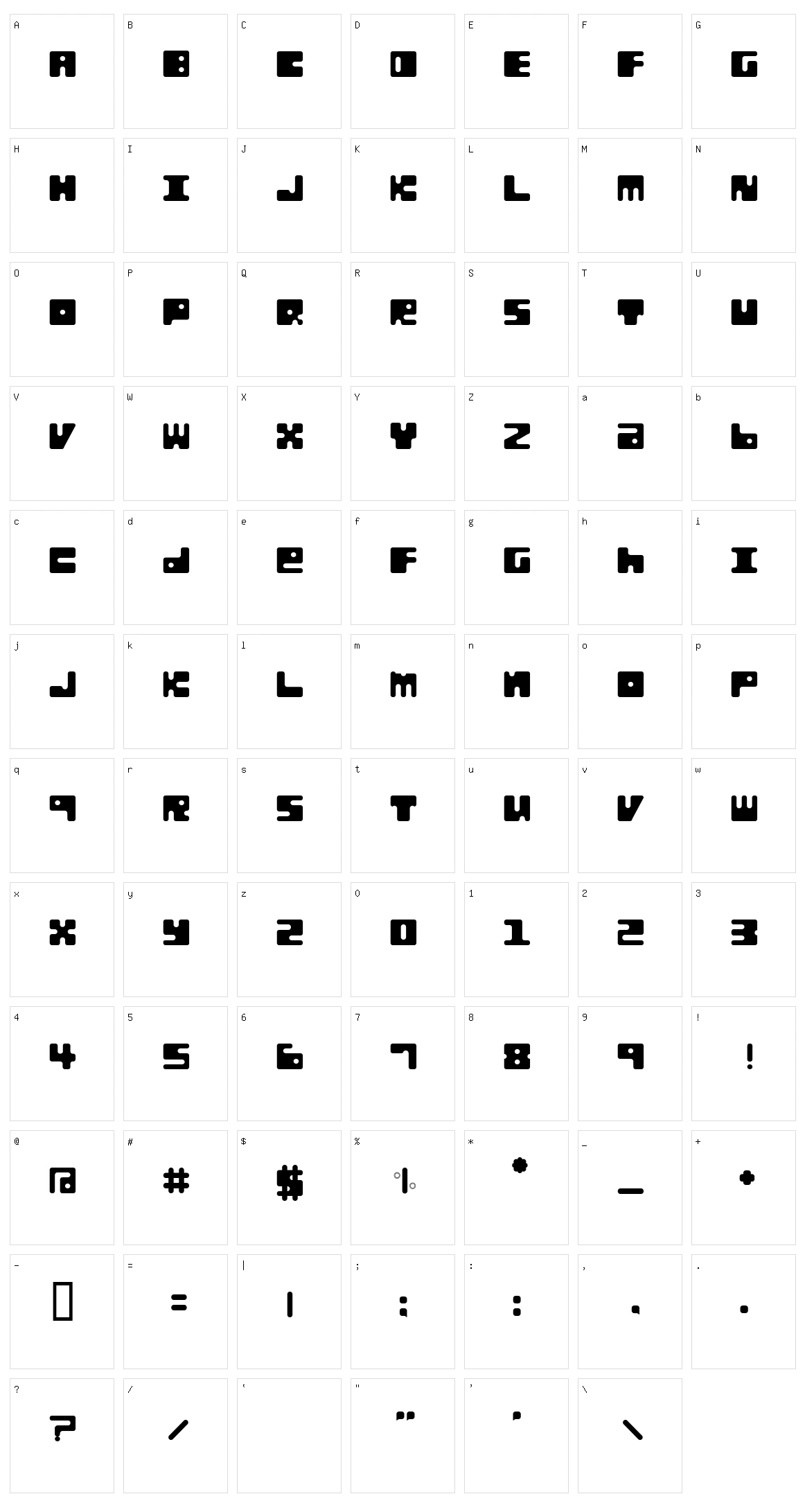
Confection Cubes
Designed by: Eric Michael
DESIGNER'S NOTES:
Shortly after I began to design this typeface, it was brought to my attention that there were a couple of similar typefaces on the market. These 'square' typefaces had one difference, however. With mine, I was intending to attain to a strictly 'square', mono-spaced typeface, that had LEGIBILITY as the utmost objective.
My hope is that this font will not only be unique, but more useable. I attempted to accomplish this by including alternative characters to a typeface that is not intended to have 'uppercase' and 'lowercase' characters.